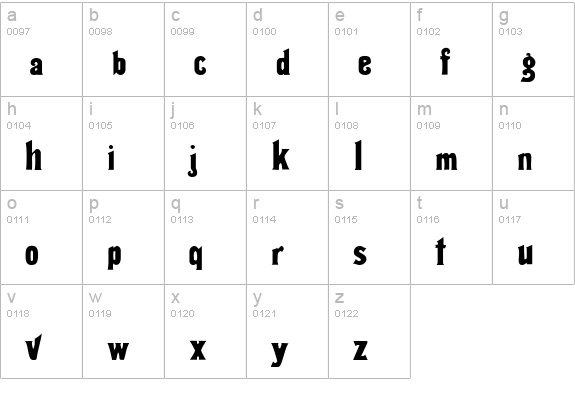
Thalia Normal Font Details
Thalia Normal is the standard, neutral variant in the Thalia typeface family \xE2\x80\x94 well suited to general body text, paragraphs, and standard typographic work.
Thalia Normal font is a versatile and elegant typeface that exudes sophistication and charm. With its clean lines and balanced proportions, this font is perfect for a wide range of design projects, from logos and branding to editorial layouts and web designs. The Thalia Normal font is characterized by its timeless appeal, making it suitable for both modern and classic design aesthetics. Its legibility and readability make it an excellent choice for body text, ensuring that your message is conveyed clearly and effectively. One of the standout features of Thalia Normal font is that it is freely available to download at FontsMarket.com. This means that designers and creatives can access this beautiful font without any cost, making it an excellent resource for those on a budget or looking for high-quality free fonts. Whether you are a professional designer or a hobbyist, Thalia Normal font offers a wide range of possibilities for your creative projects. Its extensive character set includes uppercase and lowercase letters, numerals, punctuation marks, and special symbols, providing you with everything you need to create visually stunning and engaging designs. With its timeless elegance and free availability, Thalia Normal font is a must-have font for any designer's toolkit. Download it now at FontsMarket.com and let your creativity shine with this exceptional typeface.